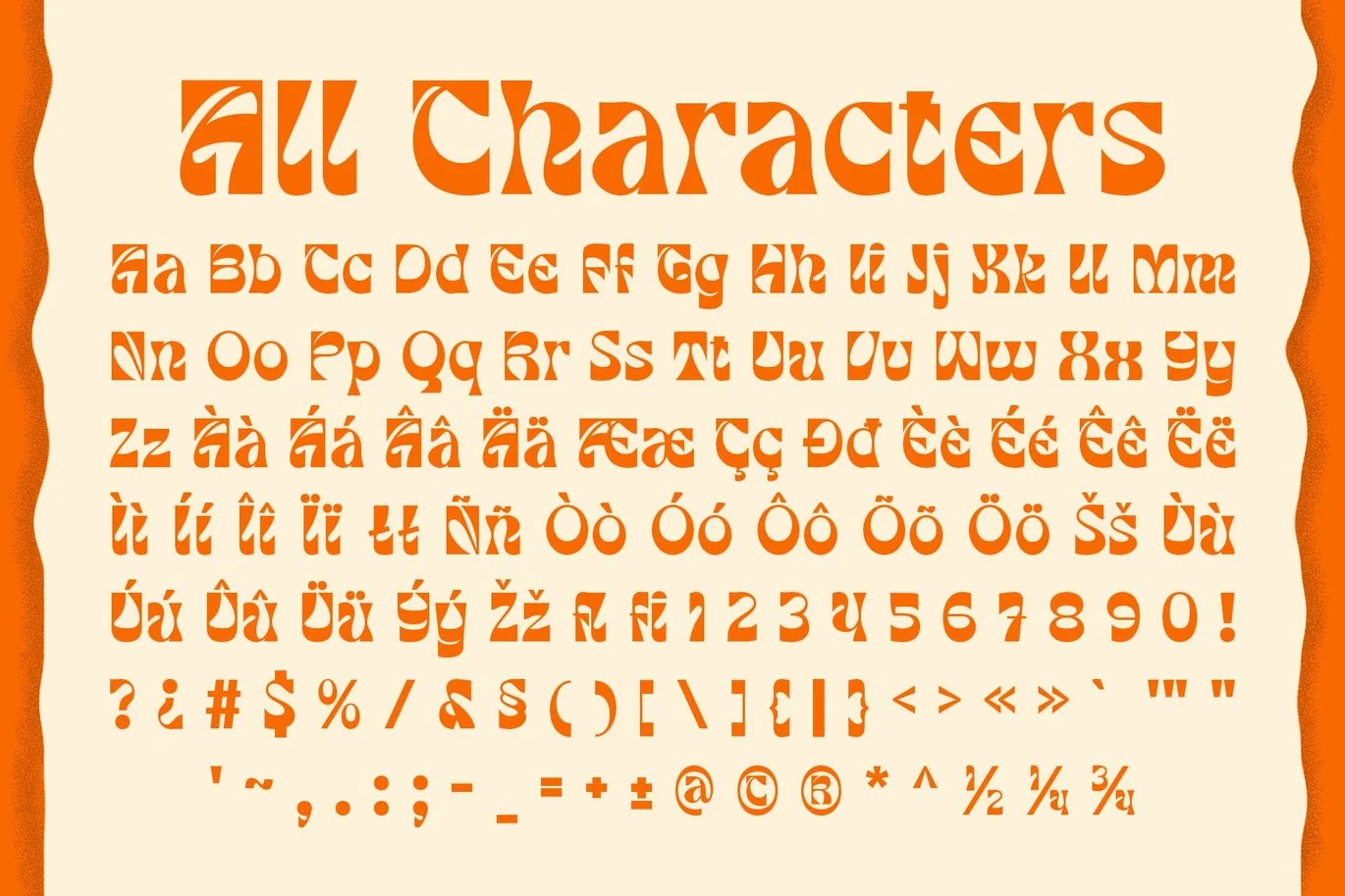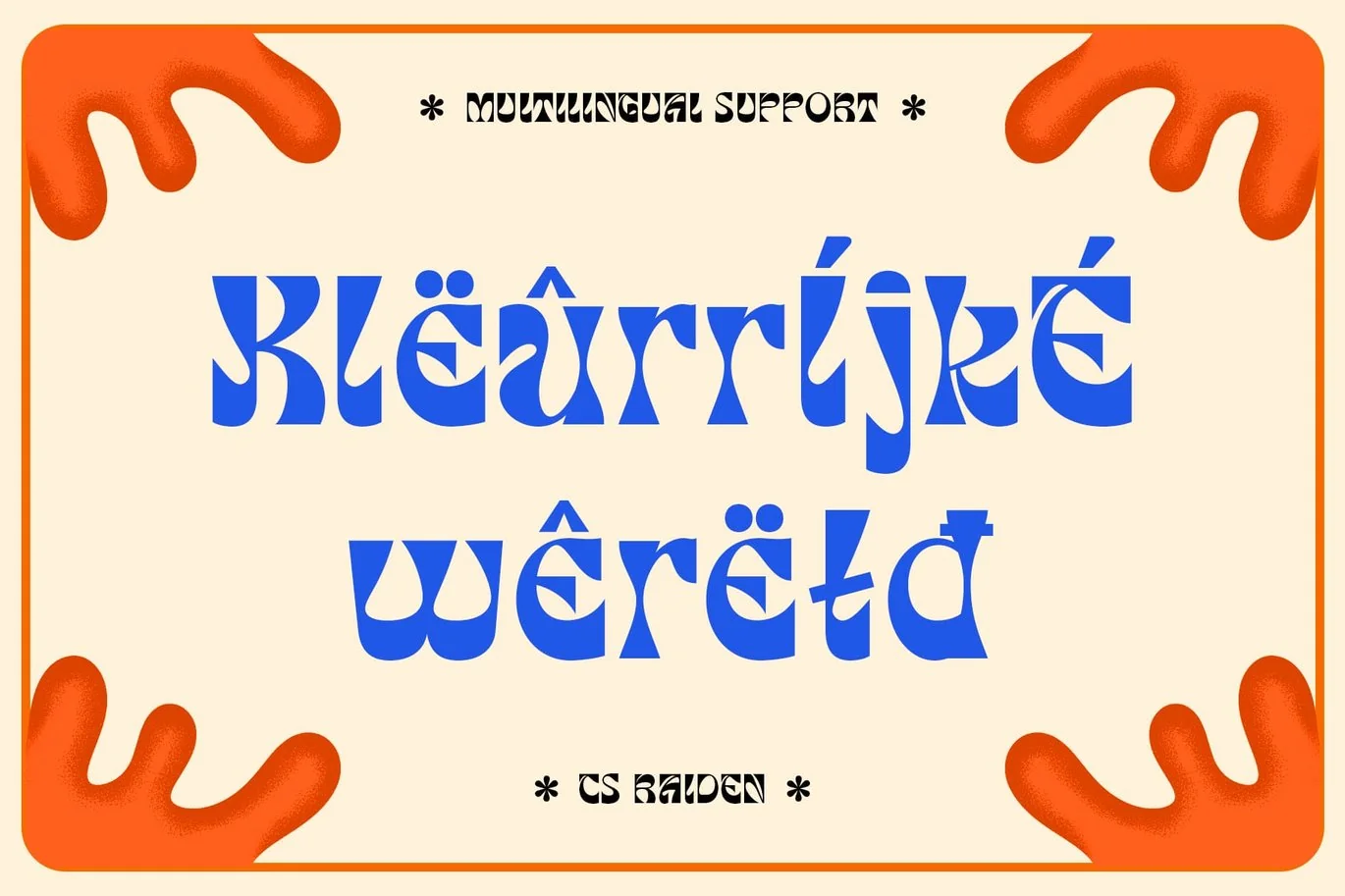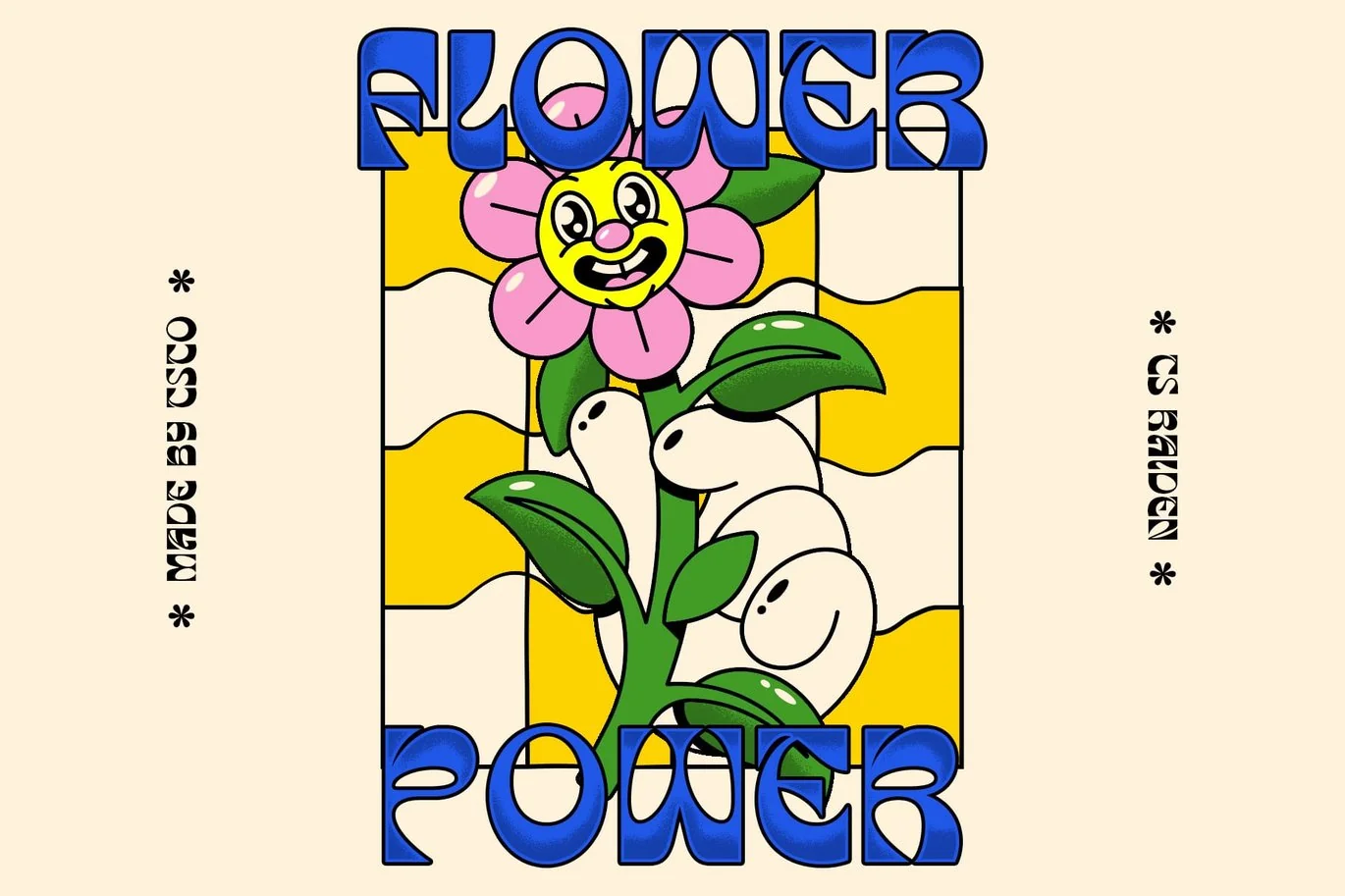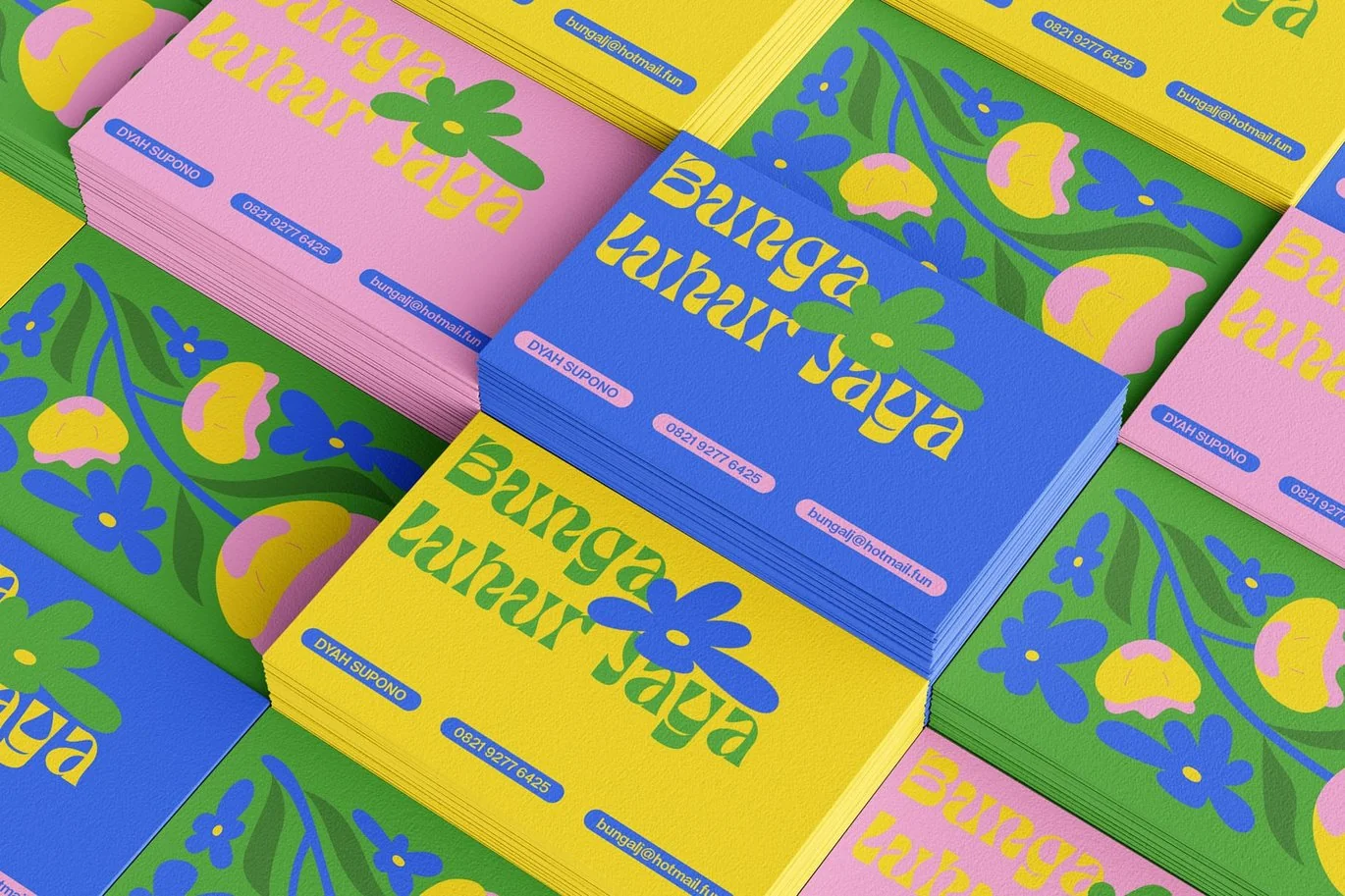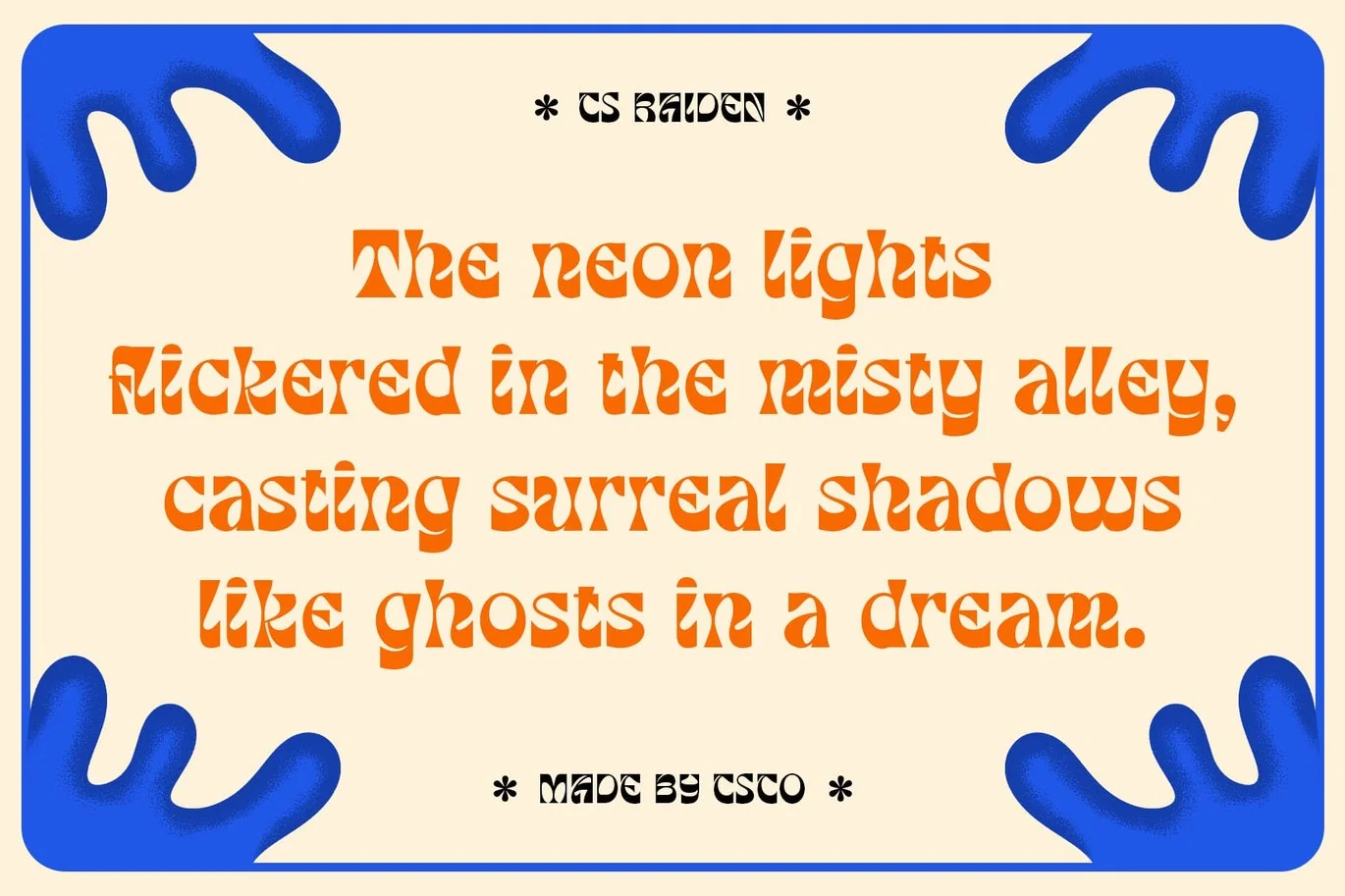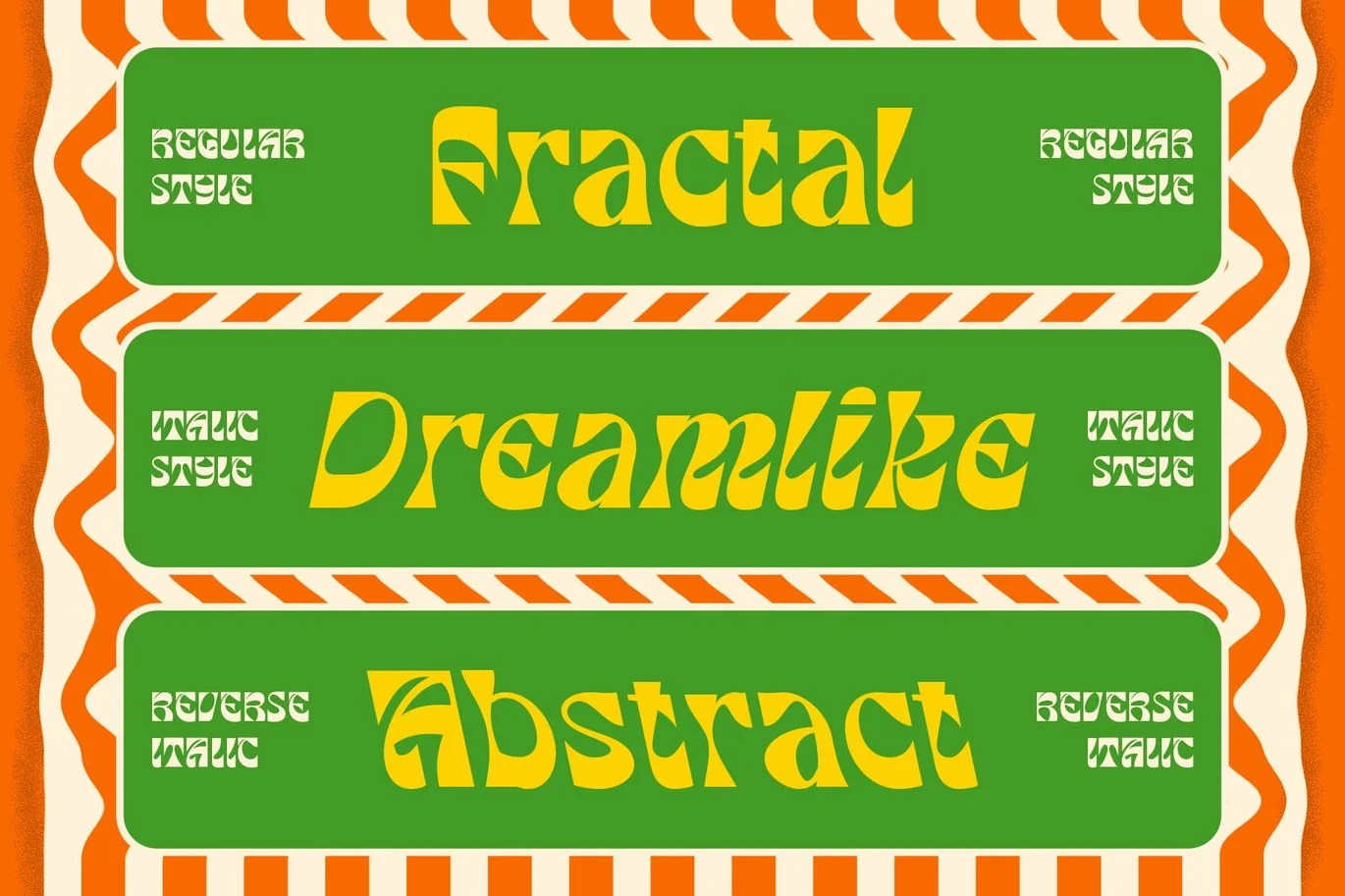
Raiden – Reverse Contrast Font
CS Raiden – Reverse Contrast Font: Bold, Playful, and Striking
Reverse Contrast Display Font
CS Raiden is a reverse contrast display font, where horizontal strokes are thicker than vertical ones, creating a bold, eye-catching, and experimental aesthetic. This unique contrast challenges traditional typography norms, making it ideal for designs that demand attention and originality. Whether used for posters, logos, or branding, CS Raiden delivers a memorable and impactful presence.
A Blend of Vintage and Modern Influences
Inspired by 19th-century typography, CS Raiden captures the essence of retro signage, circus posters, and Wild West aesthetics, while infusing a contemporary edge. Its dramatic contrast and unique proportions add a sense of nostalgia, playfulness, and visual impact, making it an excellent choice for bold and expressive designs.
Dynamic and Playful Letterforms
With its eccentric curves, exaggerated details, and striking contrasts, CS Raiden brings a cheerful and energetic character to any project. Whether used in editorials, branding, or posters, this font delivers a unique and charismatic personality, making typography feel more engaging and animated.
Perfect for Standout Designs
CS Raiden is ideal for branding, display headlines, packaging, and editorial layouts that require a creative, vintage-modern fusion. Its unconventional yet sophisticated style ensures a strong visual identity, perfect for those who want to push boundaries and explore the artistry of reverse contrast typography.